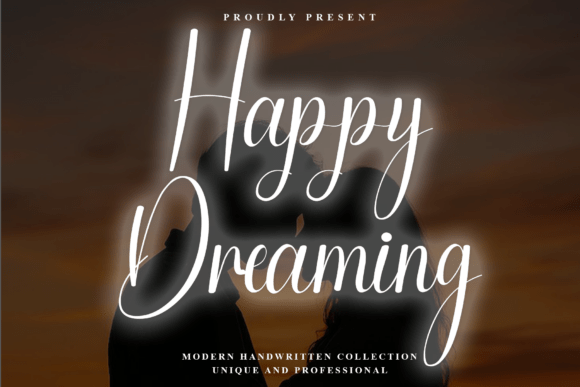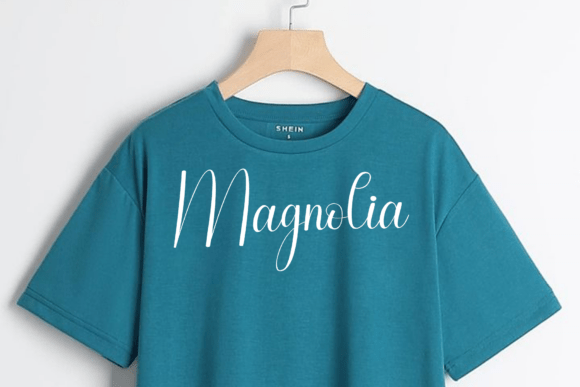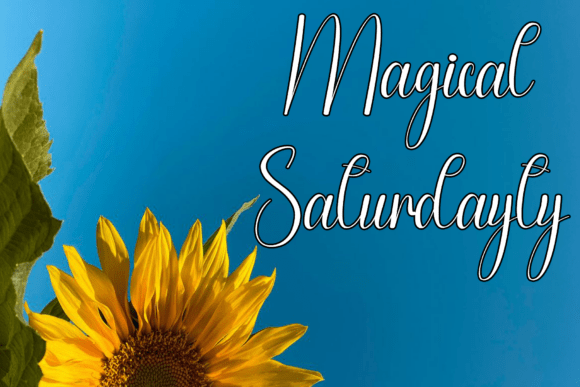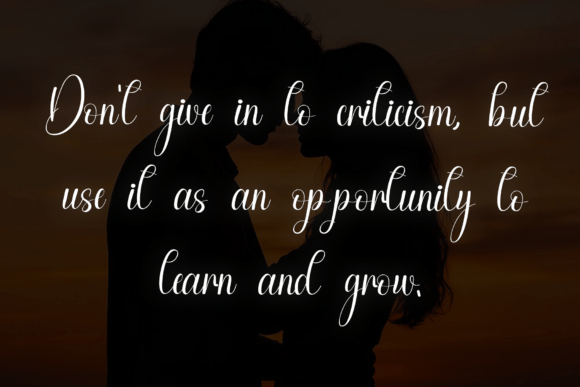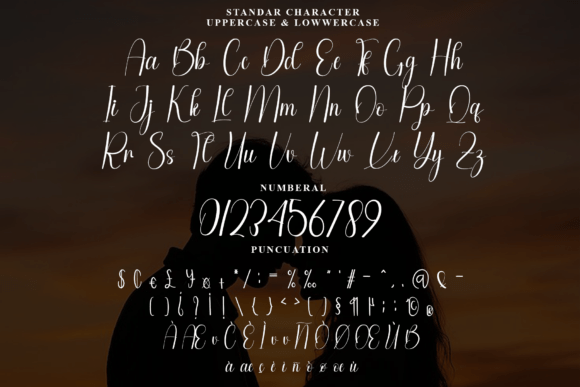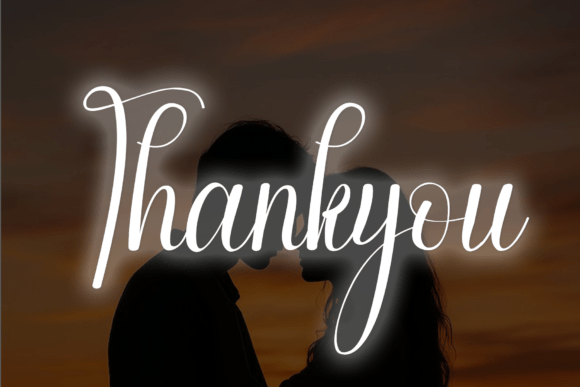
Unleash Your Creative Potential with the Perfect Script Font
Have you ever stared at a blank page, waiting for inspiration to strike? You know, that moment when the ideas just start flowing and you feel like you’re on the verge of something special? For designers, those moments are what make all the hard work worth it. And when you’re ready to bring your vision to life, the right font can make all the difference.
That’s where the Happy Dreaming Font comes in – a beautifully flowing and elegant modern handwritten script font that’s perfect for adding a touch of sophistication to your designs. Whether you’re working on a personal branding project, creating luxury wedding stationery, or editing a magazine article, this unique typeface is sure to elevate your work and leave a lasting impression. With its smooth, generous curves and graceful strokes, the Happy Dreaming Font is a valuable addition to any designer’s toolkit.
Happy Dreaming Font Key Features
- Font Family: Happy Dreaming Font is a unique, hand-drawn font designed to evoke a sense of whimsy and wonder.
- Character Count: The font includes a wide range of characters, including uppercase and lowercase letters, numbers, and punctuation marks.
- Unique Characteristics: The Happy Dreaming Font features a playful, handwritten style with varying line widths, making it perfect for adding a touch of personality to designs.
Designer Review: Happy Dreaming Font
Overall, I think Happy Dreaming Font is a lovely addition to any design project that requires a touch of whimsy and charm. ✨ The font’s unique and playful style is sure to capture the attention of your audience, making it perfect for branding, advertising, or any other project that needs a bit of personality.
- ✨ Unique and playful style that adds a touch of whimsy to any design
- ✨ Suitable for branding, advertising, and any other project that requires a bit of personality
- ✨ Works well for both digital and print media
- ⚠️ May not be suitable for projects that require a more formal or professional tone
- ⚠️ Limited font sizes and weights may make it difficult to customize for certain applications
Overall, I think Happy Dreaming Font is a great addition to any designer’s toolkit. While it may not be suitable for every project, it’s a great choice for those that require a touch of whimsy and charm. With a little creativity and experimentation, I think Happy Dreaming Font can add a lot of value to your designs.
Happy Dreaming Font: A Practical Application Guide
Happy Dreaming Font is perfect for creating dreamy and whimsical designs in Canva, such as invitation templates and social media graphics.
Happy Dreaming Font is ideal for creating dreamy and ethereal designs in Adobe Photoshop and Illustrator.
Happy Dreaming Font is perfect for adding a touch of whimsy and personality to your PowerPoint and Word documents.
Happy Dreaming Font is ideal for:
- Social media graphics and advertising
- Typography-based art and illustrations
- Presentation slides and documents
Remember to always use the font in context
Alternative Fonts to Happy Dreaming Font
Great Vibes is a beautiful, hand-drawn font that features elegant, flowing lines and a touch of whimsy. It’s perfect for use in designs that require a sense of playfulness and sophistication. When to use: Wedding invitations, greeting cards, and other designs that need a touch of romance and elegance. Compared to Happy Dreaming Font, Great Vibes has a more refined and sophisticated look, making it suitable for more formal designs.
Carolyna Pro is a modern, elegant font that features clean lines and a touch of luxury. It’s perfect for use in designs that require a sense of sophistication and refinement. When to use: Luxury branding, high-end product packaging, and other designs that need a touch of elegance and sophistication. Compared to Happy Dreaming Font, Carolyna Pro has a more modern and sleek look, making it suitable for designs that require a sense of luxury and refinement.